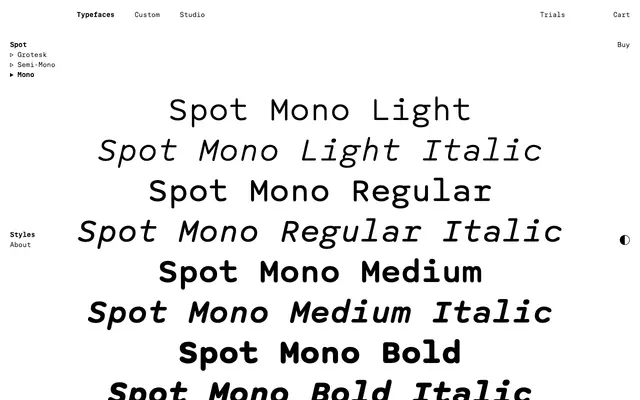
Spot Mono
Spot's fixed-pitch flavour and original starting point: a typewriter monospace in four weights with italics, with rounded ends and distinctive impressed dots.
Spot Mono is the fixed-pitch flavour of Spot and the family's starting point: the foundry note that the Mono came first and informs the whole family. Uniform stroke width, rounded ends and distinctive dots evoke a typebar hitting an inked ribbon and digging into the paper, while a wide stance and large x-height keep it readable. Four weights from Light to Bold with matching italics, plus innovative fractions, sub- and superscripts and a kit of playful and functional icons, suit code, technical documentation and warm display work alike. Pair with Spot Grotesk and Spot Semi-Mono.
The fixed-pitch flavour of Spot and the original starting point of the family; the foundry note that the Mono came first and shaped the whole family's appearance.